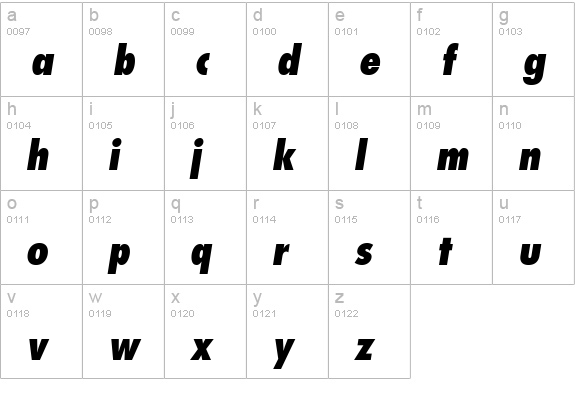
Futura Condensed Extra Bold Oblique is a strong, high-contrast, condensed-width, italic variant in the Futura typeface family \xE2\x80\x94 well suited to headlines, attention-grabbing titles, and strong calls-to-action.
Futura Condensed Extra Bold Oblique is a striking and dynamic font that exudes confidence and modernity. With its bold weight and slanted italic style, this typeface commands attention and adds a touch of sophistication to any design project. Perfect for headlines, titles, and emphasis, Futura Condensed Extra Bold Oblique stands out with its strong presence and sleek aesthetics. And the best part? This font is available for free download at FontsMarket.com! Get your hands on this versatile and impactful typeface to elevate your designs and make a bold statement. Don't miss out on the opportunity to enhance your projects with the bold and stylish Futura Condensed Extra Bold Oblique font, now easily accessible for free at FontsMarket.com.